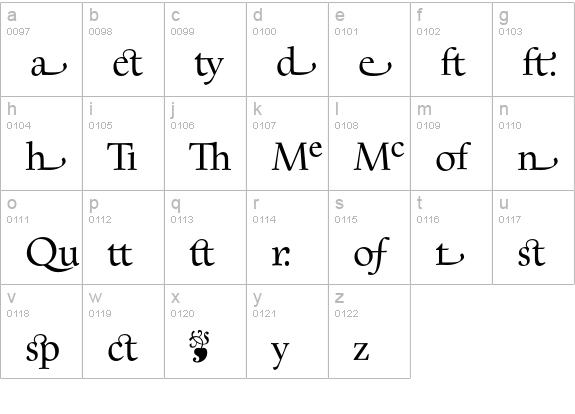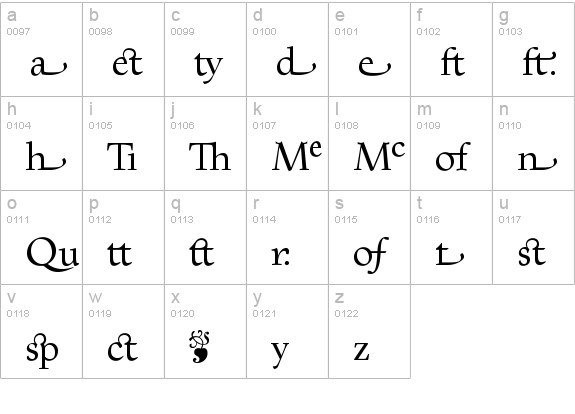
Kennedy Cus Book Font Details
Kennedy Cus Book is a comfortable, highly readable variant in the Kennedy typeface family \xE2\x80\x94 well suited to long-form body text, articles, and editorial content.
Introducing the captivating and versatile Kennedy Cus Book font, a stunning typeface that effortlessly combines elegance with a contemporary twist. This font is perfect for those seeking a font that exudes sophistication and style, while maintaining a modern edge. Kennedy Cus Book features a graceful and fluid design, with each letter crafted to perfection. The smooth curves and balanced proportions give this font a timeless appeal, making it suitable for a wide range of creative projects. Whether you're designing a logo, creating a magazine layout, or crafting an eye-catching poster, Kennedy Cus Book will elevate your designs to new heights. Its clean and legible letterforms ensure readability, even at smaller sizes, making it ideal for both print and digital applications. One of the most remarkable aspects of Kennedy Cus Book is that it is free to download at FontsMarket.com. Yes, you read that right – this extraordinary font is available to you at no cost, allowing you to enhance your designs without breaking the bank. FontsMarket.com provides a convenient and user-friendly platform where you can effortlessly access and download Kennedy Cus Book, ensuring that it is readily available for all your creative endeavors. So, why settle for ordinary when you can elevate your designs with the captivating Kennedy Cus Book font? Download it for free at FontsMarket.com and unlock a world of possibilities for your next project.